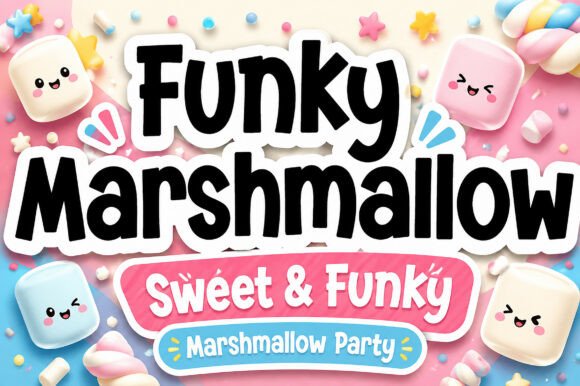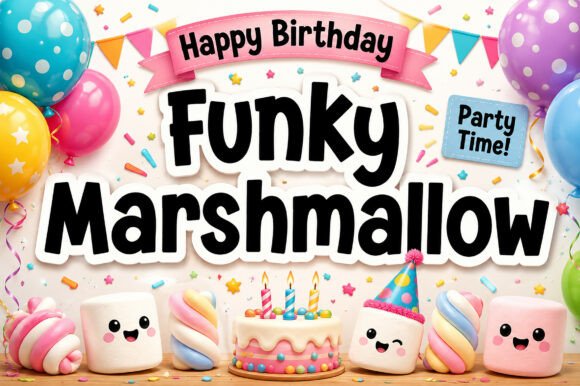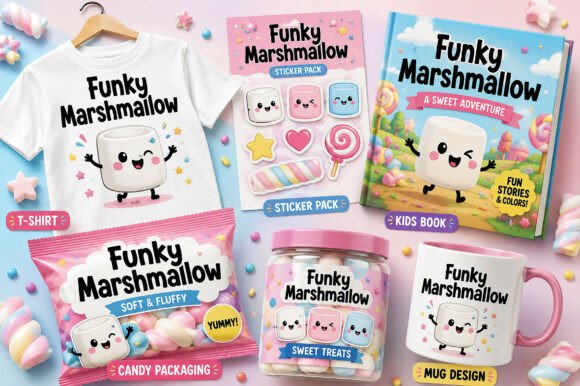
Indulge Your Creative Sweet Tooth with Funky Marshmallow
Ah, the sweet thrill of the design process! I still remember the time I was working on a children’s birthday invitation project, and my client asked for a font that was “fun, playful, and reminiscent of gourmet marshmallows.” I scoured the internet, tried out a dozen fonts, but none seemed to capture the perfect blend of whimsy and sophistication. That was until I stumbled upon Funky Marshmallow – a sweet and funky display font that instantly won my heart!
A Font that Bursts with Personality
Funky Marshmallow is an ultra-thick, soft sans-serif font that features pillowy contours that gently organic-form against one another. Its clean, high-contrast white contour border and deep pastel backing shadows give it a bouncy rhythm that’s impossible to resist. This font is perfect for designers, crafters, and creative hobbyists who want to add a touch of professional layout control and cozy warmth to their typography compositions.
What I Love About Funky Marshmallow
• ✨ Unique and playful design: Funky Marshmallow’s distinctive look is sure to make your headers pop with pure joy!
• ✅ High versatility: This font is perfect for a wide range of projects, from children’s birthday invitation layouts to modern confectionery packaging and sweet shop signage.
• 💡 Instant recognition: Funky Marshmallow’s bold and bubbly design ensures your message will grab attention and leave a lasting impression.
• 🎉 Easy to read: Despite its playful nature, this font remains clear and legible, even at smaller sizes.
While Funky Marshmallow is an exceptional font, there are a few minor quirks to be aware of:
• 🤔 Limited use in formal contexts: Due to its playful nature, Funky Marshmallow might not be the best fit for formal or corporate designs.
• ⚠️ Legibility at very small sizes: While generally clear, the font’s ultra-thick strokes can become blurry or pixelated at very small sizes (below 10-12 points).
The Designer Inspiration Behind Funky Marshmallow
Funky Marshmallow was designed with the intention of capturing the whimsical and comforting essence of gourmet marshmallows. Its creator drew inspiration from the soft, pillowy texture of marshmallows and the joy of indulging in sweet treats. The result is a font that’s both playful and sophisticated, perfect for a wide range of creative projects.
What type of projects is Funky Marshmallow best suited for? Funky Marshmallow is perfect for children’s birthday invitation layouts, modern confectionery packaging, sweet shop signage, and playful animation graphics.
Is Funky Marshmallow available in different weights or styles? Currently, Funky Marshmallow is available in a single weight. However, its OpenType features and glyphs offer a range of stylistic alternates to help you customize your text.